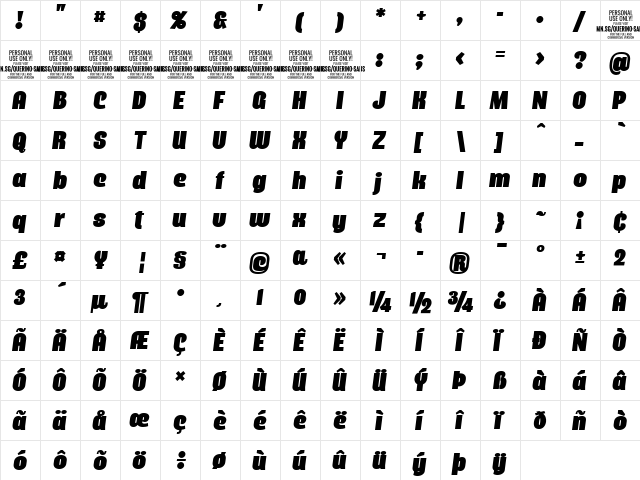
Querino Sans PERSONAL USE Italic
| Foundry | Mans Greback |
| Designer | Mans Greback |
Design Context for Querino Sans PERSONAL USE Typeface
Querino Sans PERSONAL USE is a composed and adaptable typeface that performs quietly and consistently across a wide range of design contexts. The dynamic lean of this cut emphasises speed and emphasis in any layout.
Pro Tip: Try Querino Sans PERSONAL USE for annotation and caption copy alongside an upright companion — the contrast in angle creates a dynamic but ordered typographic system.